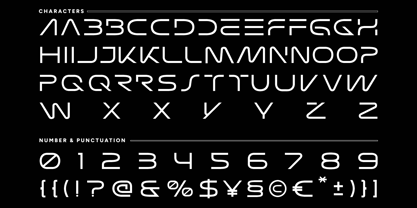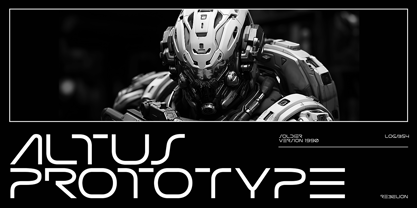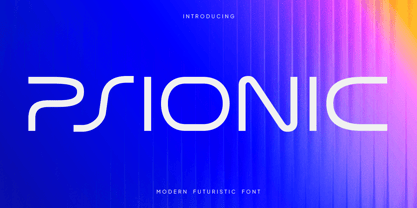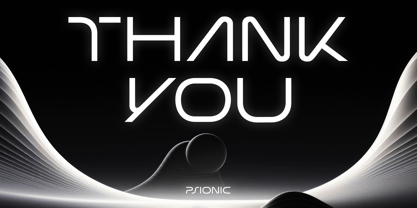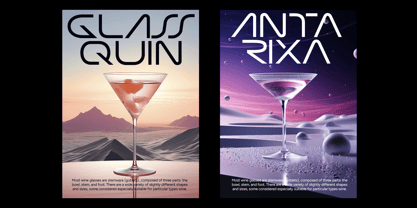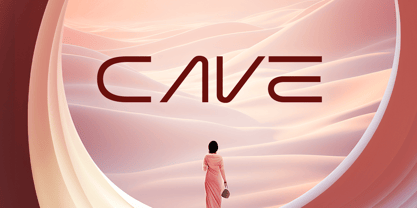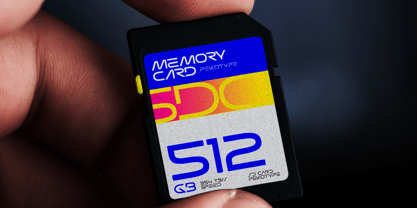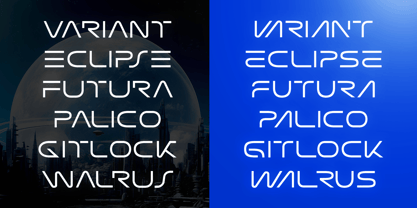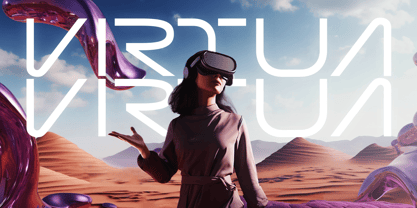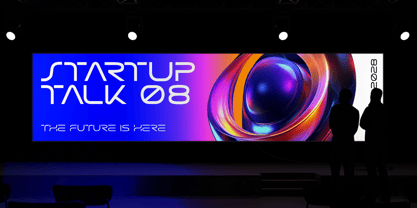
Psionic
by Pekotype
The Psionic Font Family was designed by Galang Bryan and published by Pekotype. Psionic contains 1 styles. More about this family
PSIONIC is a futuristic display font inspired by technology, sci-fi, and modern innovation. With its sharp shapes and bold character, it’s perfect for tech branding, gaming projects, movie titles, esports, posters, social media content, and digital products. Designed to create a strong and modern impression, PSIONIC helps your designs stand out with a sleek, high-tech look that feels fresh and forward-thinking.
Designers: Galang Bryan
Foundry: Pekotype